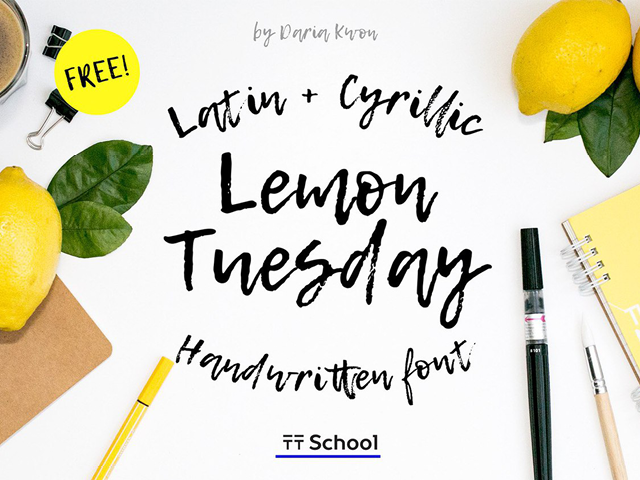
TypeType Foundry here to present you the new free super accidental font, Lemon Tuesday Handwritten Font. This typeface is based on expressive author calligraphy by Daria Kwon. This font had emerged during the online course “Your Font” by Typetypeschool in August 2016. Lemon Tuesday is first of all that suitable for short emotional inscriptions. Therefore it will be great for creation of beautiful content in social networks and specialized media. Moreover, the font includes a standard set of Cyrillic characters and an extended Latin set.